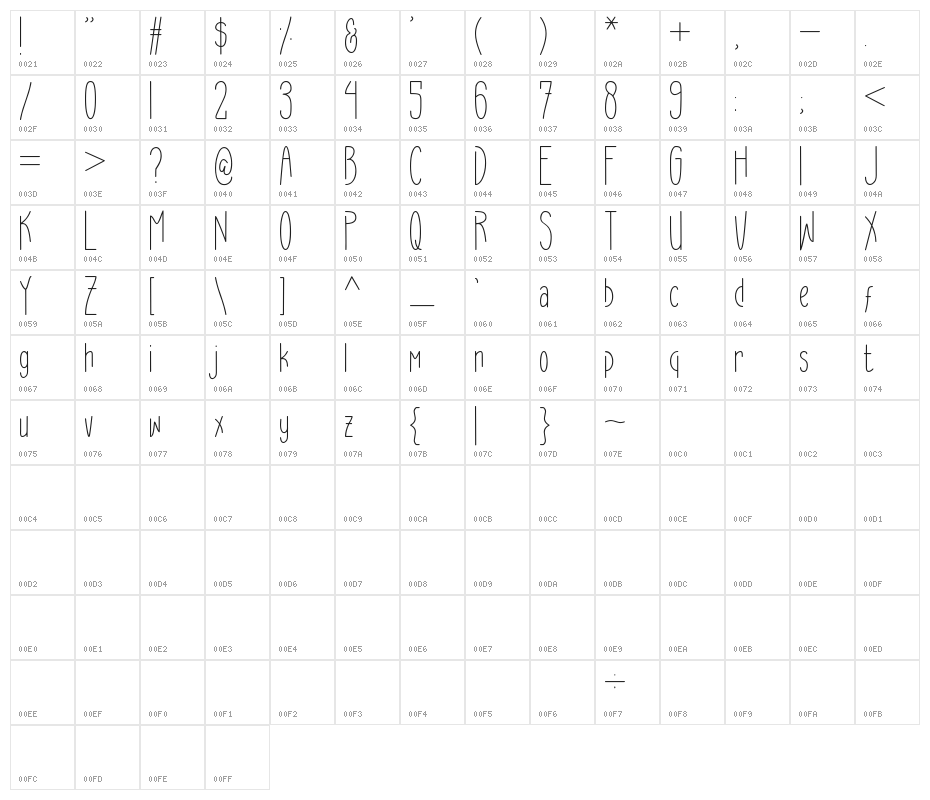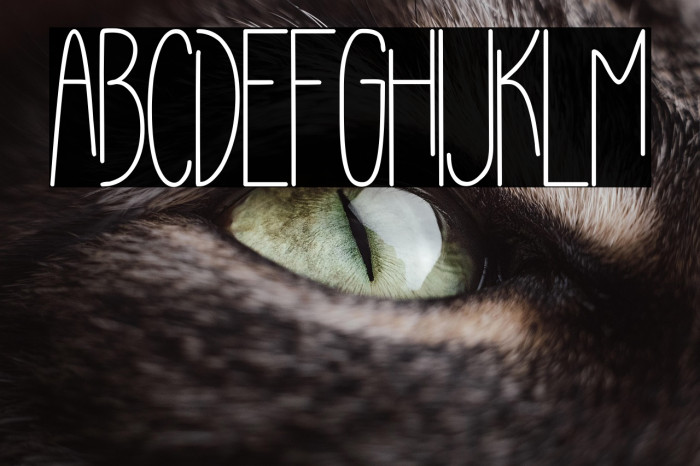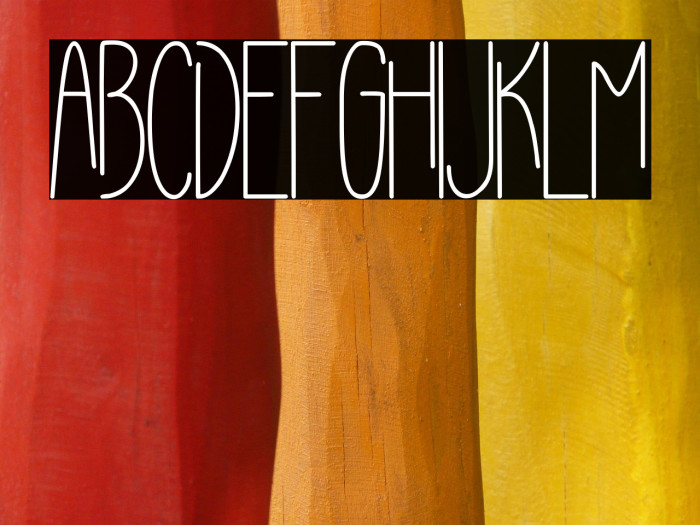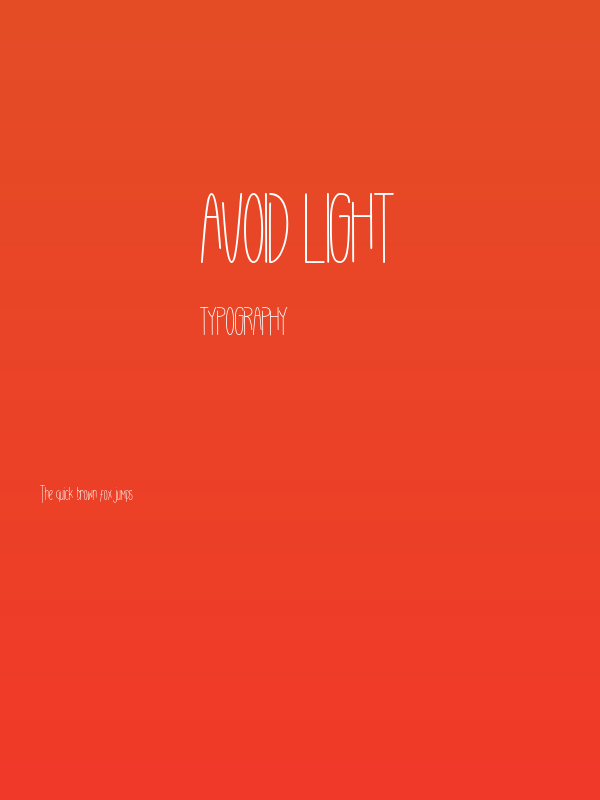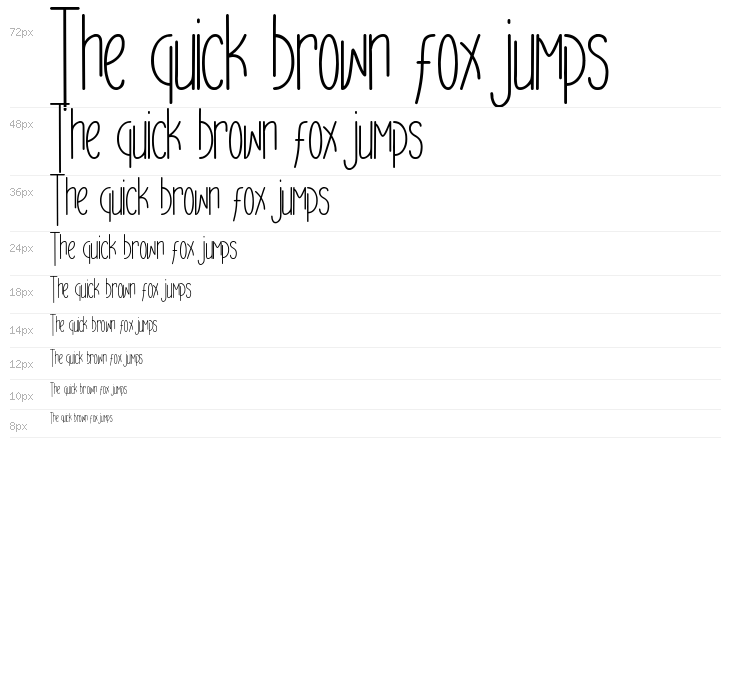
Avoid Light Font
This font exhibits a unique and modern aesthetic with its elongated and narrow letterforms. The characters are tall and slender, giving a sense of elegance and sophistication. The strokes are consistently thin, contributing to a light and airy feel. The uppercase and lowercase letters maintain a consistent style, with rounded edges and a slight curvature that adds a touch of softness. Numbers and special characters follow the same design principles, ensuring uniformity across all glyphs. This font's distinctive style makes it stand out, ideal for projects that require a contemporary and stylish look.
| Proposed Projects | Ideal for fashion magazines, modern branding, minimalist posters, and elegant invitations. |